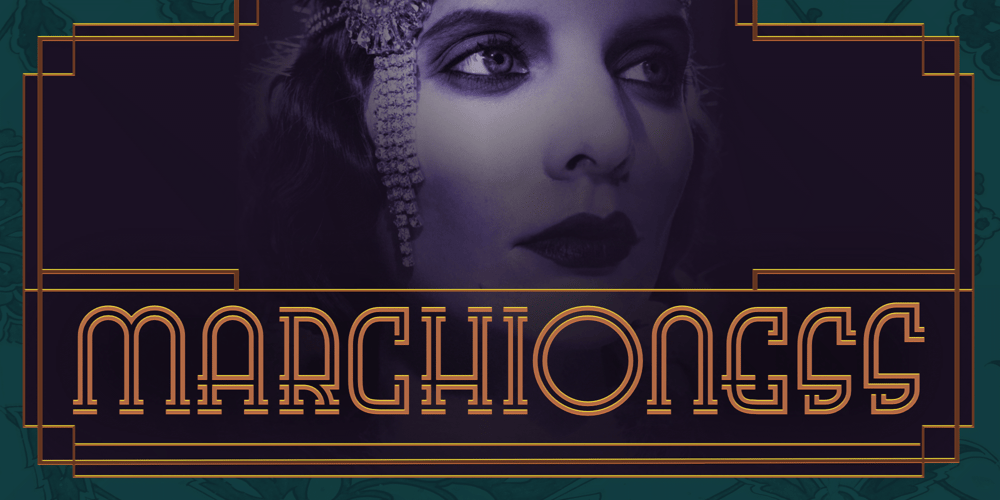
Marchioness Font Family was designed by Michael Kovacevich and published by MKGD. Marchioness contains 1 styles and family package options. Marchioness is a typeface that was built on the same basic structure as Lady Edith. I considered making it a subset of Lady Edith but felt that its overall appearance projected a uniqueness that allowed it to stand on its own. Although still maintaining a definite Art Deco form, it differentiates itself from its parent font by possessing a more opulent, if not regal, construction. The bones may be that of Lady Edith, but the typeface itself is most certainly Marchioness.There is no lower case for Marchioness as it is a decorative font. The Upper case version serves both the upper and lower case keys.Marchioness has a glyph count of 389 and supports the following languages;Supported Languages:Afrikaans, Albanian, Asu, Basque, Bemba, Bena, Bosnian, Catalan, Chiga, Colognian, Cornish, Croatian, Czech, Danish, Embu, English, Esperanto, Estonian, Faroese, Filipino, Finnish, French, Friulian, Galician, German, Gusii, Hungarian, Icelandic, Indonesian, Irish, Italian, Kabuverdianu, Kalaallisut, Kalenjin, Kamba, Kikuyu, Kinyarwanda, Latvian, Lithuanian, Low German, Lower Sorbian, Luo, Luxembourgish, Luyia, Machame, Makhuwa-Meetto, Makonde, Malagasy, Malay, Maltese, Manx, Meru, Morisyen, North Ndebele, Norwegian Bokmål, Norwegian Nynorsk, Nyankole, Oromo, Polish, Portuguese, Romanian, Romansh, Rombo, Rundi, Rwa, Samburu, Sango, Sangu, Scottish Gaelic, Sena, Shambala, Shona, Slovak, Slovenian, Soga, Somali, Spanish, Swahili, Swedish, Swiss German, Taita, Teso, Turkmen, Upper Sorbian, Vunjo, Walser, Zulu